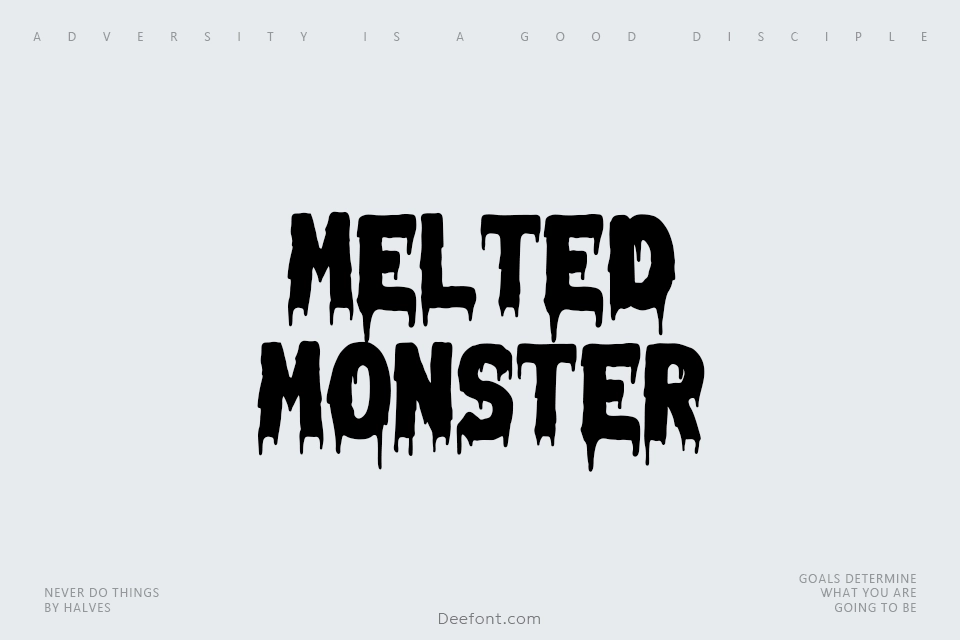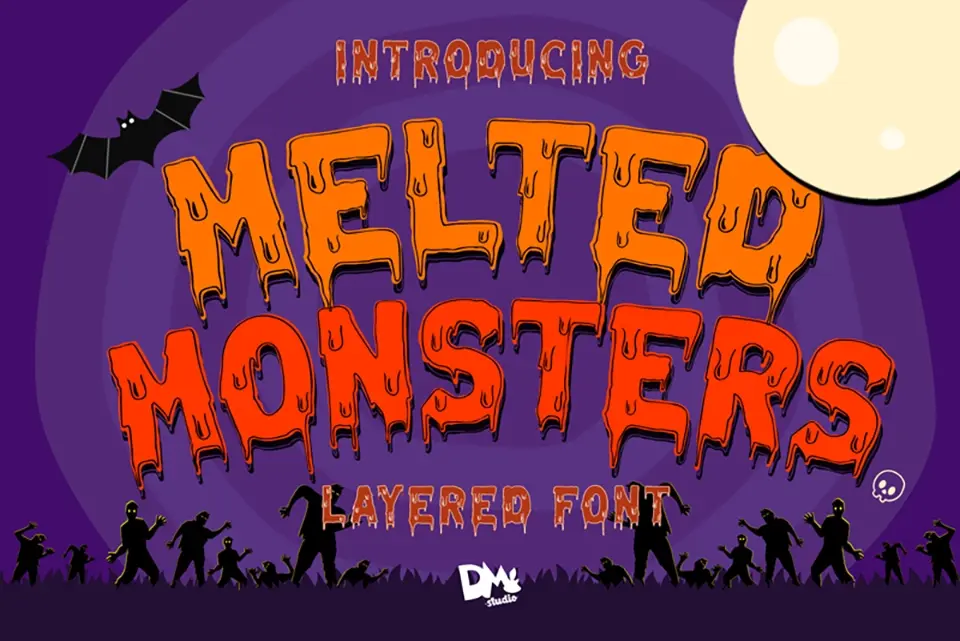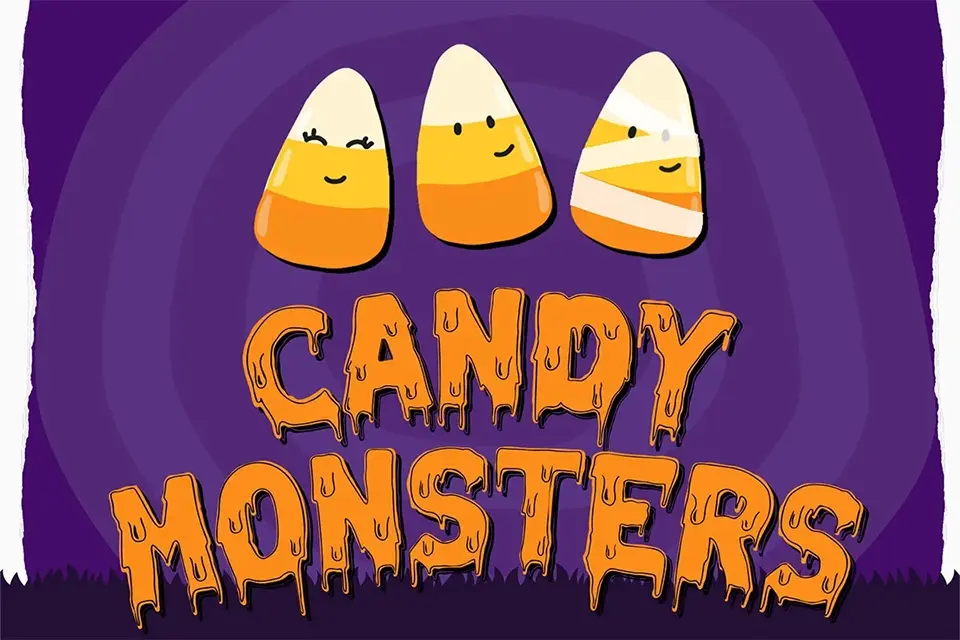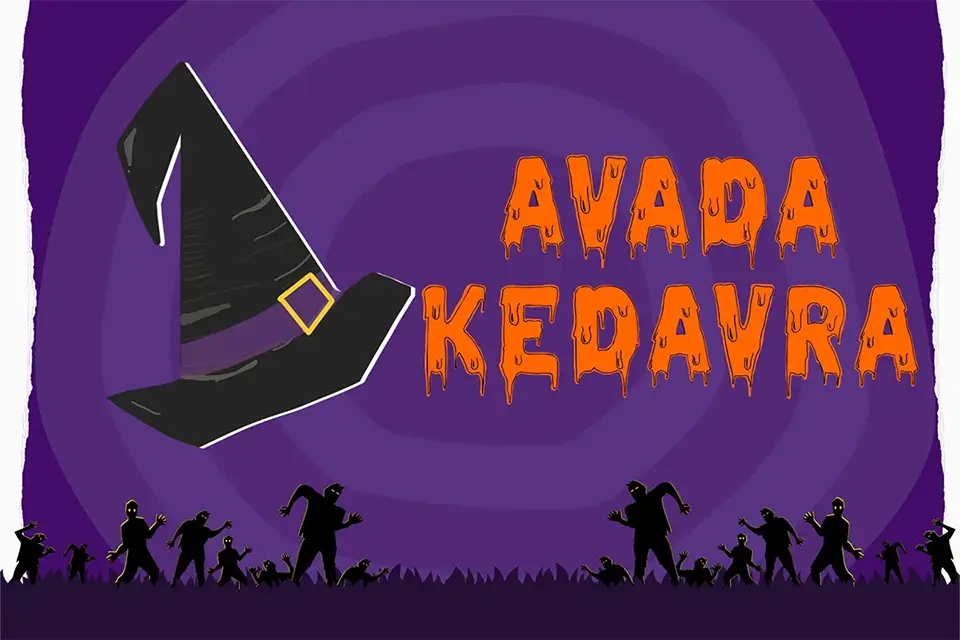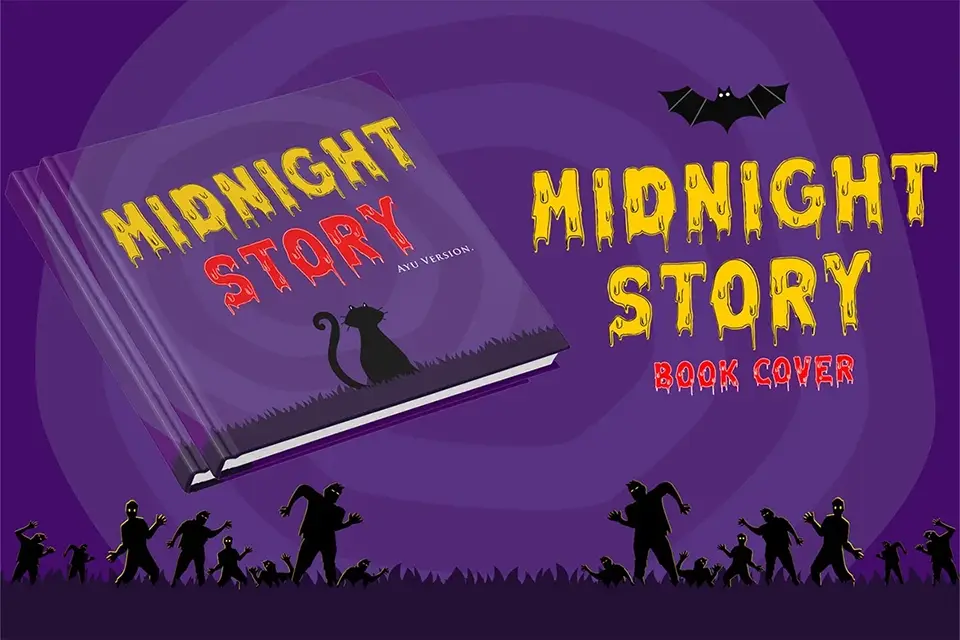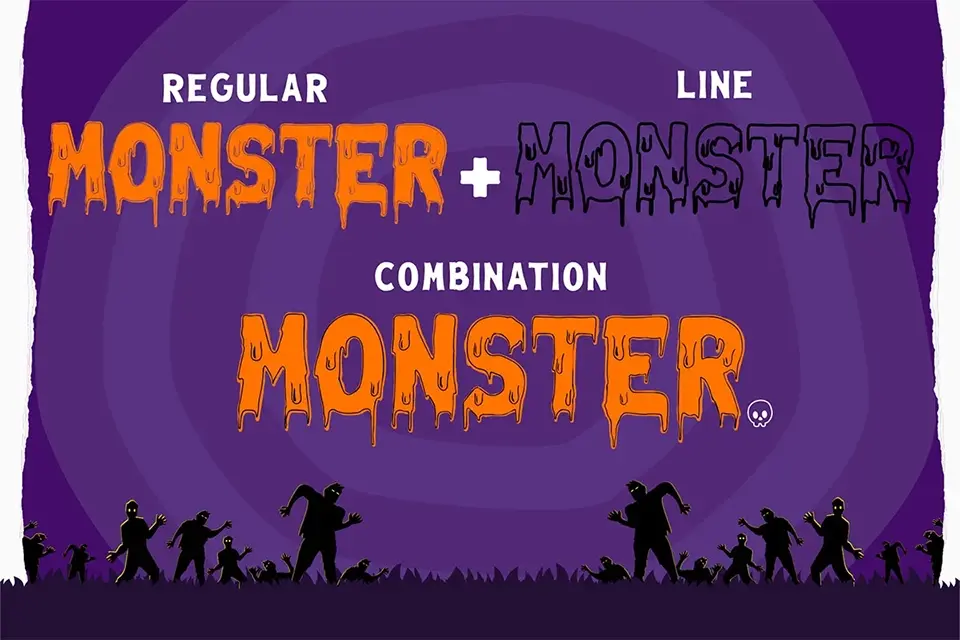
Melted Monster Font
Melted Monster is a captivating horror-inspired display font featuring dripping, melting character designs with irregular shapes and a playful yet eerie aesthetic. Created by DM Letter Studio, this decorative typeface excels in creating eye-catching titles, posters, and packaging designs for Halloween-themed projects and creative ventures. The font employs uppercase letters with no lowercase variants, making it ideal for bold headlines and attention-grabbing headlines. Its unique visual style combines horror elements with comic sensibilities, offering designers a versatile tool for projects requiring distinctive, memorable typography that stands out from conventional fonts.